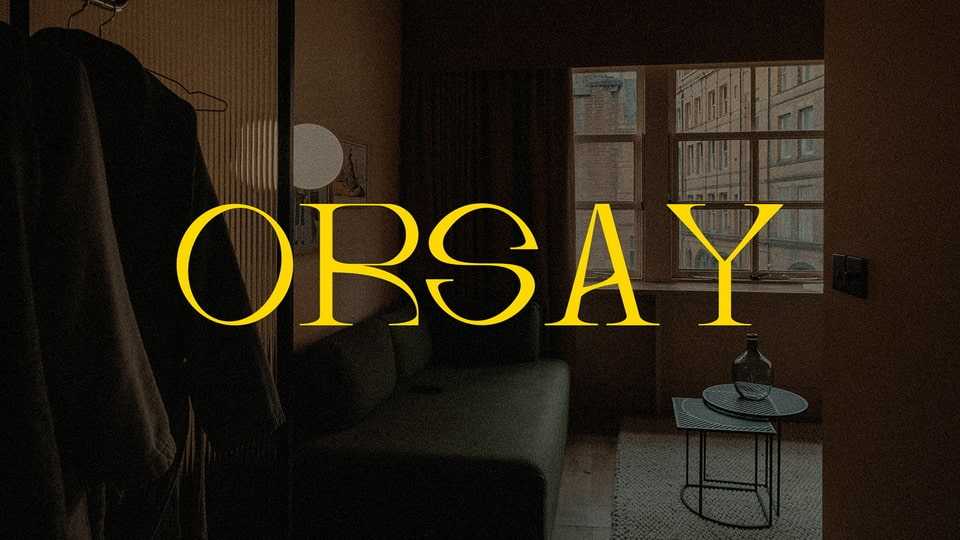
Download Orsay font, a sophisticated display serif typeface crafted with fine details that would make your typography stand out. High stroke contrast, rounded curves and sharp serifs give Orsay font a dramatic look that would succeed in delivering a strong message with elegance.